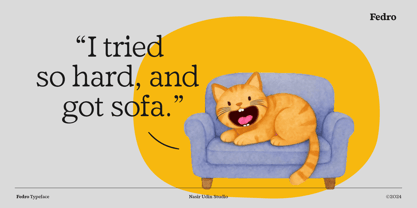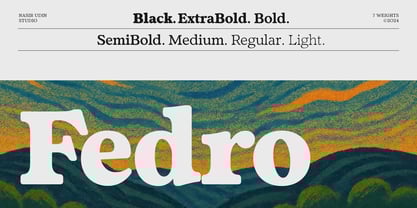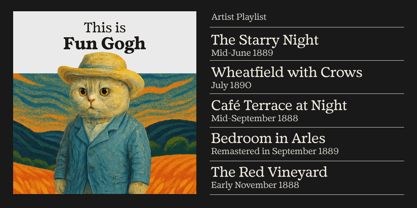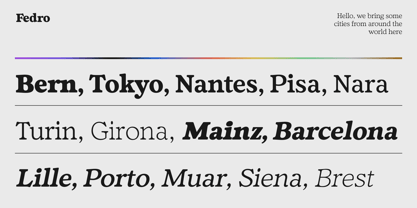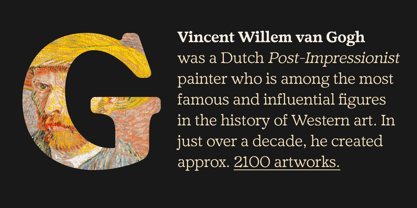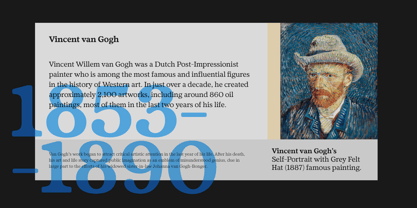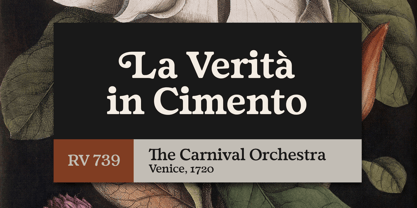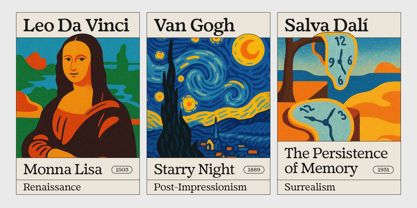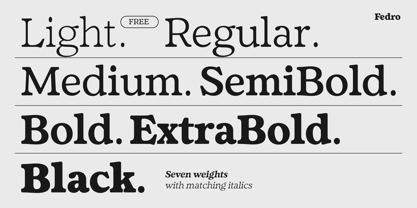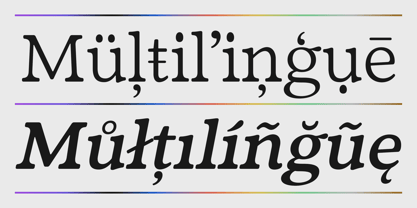
Fedro
La famille de polices Fedro a été conçue par Nasir Udin et publiée par Nasir Udin. Fedro contient 14 styles et options de package familial.
Fedro is a retro, soft display serif typeface with 14 fonts. It’s a classic typeface fuse with modern appeal and features, perfect for graphic projects that require a classic touch but feel modern.
Ranging from light to black with its matching italics, Fedro offers many possibilities to be applied in many graphic or editorial projects. Lighter weights are suitable for body text, and the heavier ones are perfect for striking headlines, perfectly suitable for display purposes such as branding, editorial, headlines, and packaging.
Thanks to the OpenType features built in, many stylistic sets and swashes are fun to play with. And with the Extended Latin character set plus Cyrillic, Fedro covers 250+ languages.